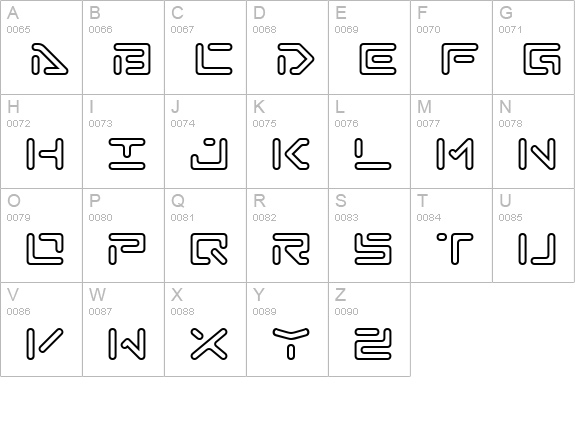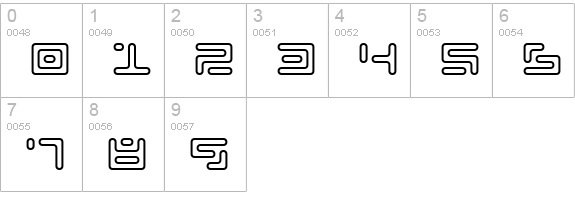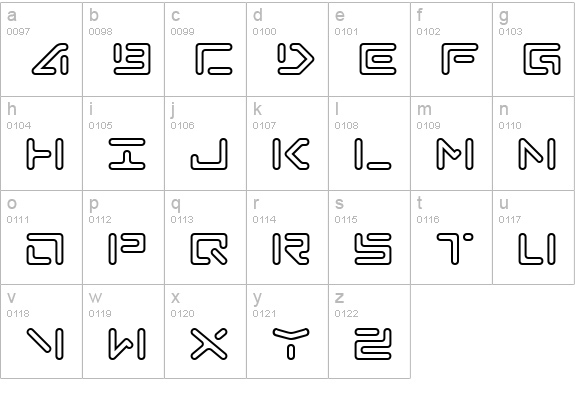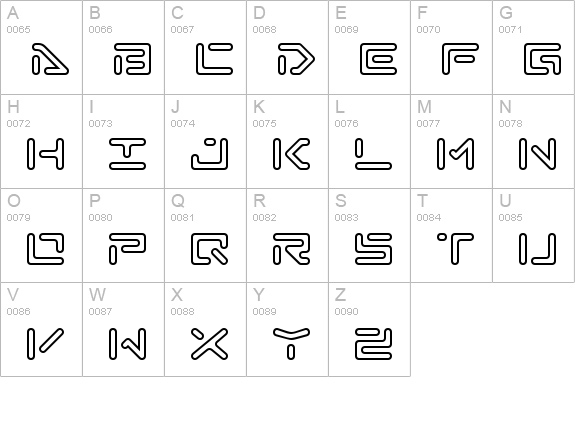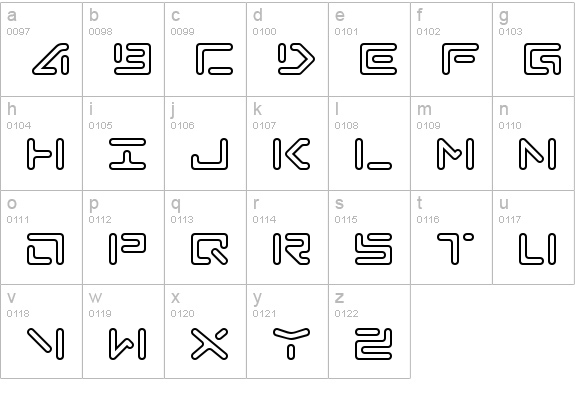
Abduction II font is a dynamic and striking typeface that exudes a sense of mystery and intrigue. With its futuristic design and sharp angles, this font is perfect for projects that require a bold and edgy look. The sleek and modern style of Abduction II will make your text stand out and grab attention. What sets Abduction II font apart is that it is not only visually captivating, but also completely free to use. That's right, you can freely download this font from FontsMarket.com and use it in your personal or commercial projects without any restrictions. So why settle for ordinary fonts when you can elevate your designs with the unique and captivating Abduction II font? Download it now and unleash your creativity!